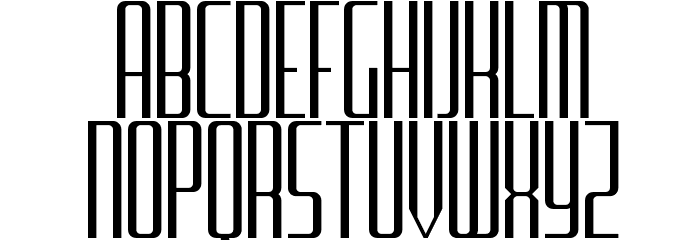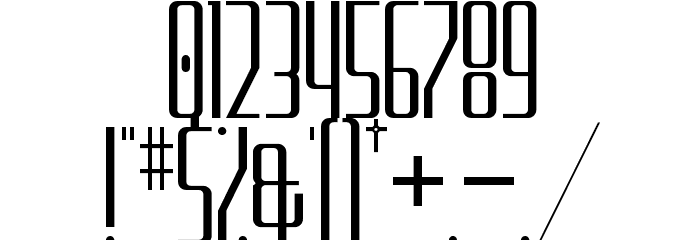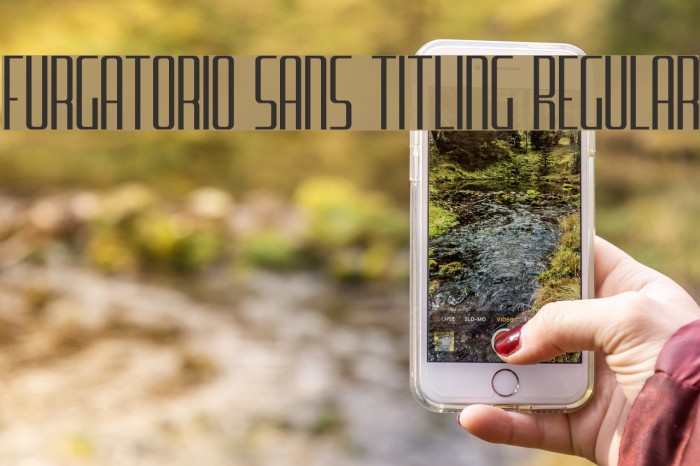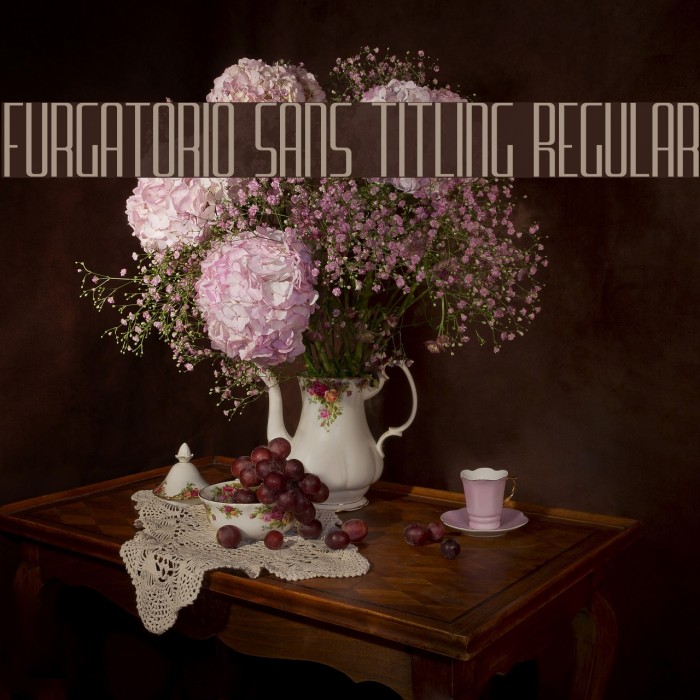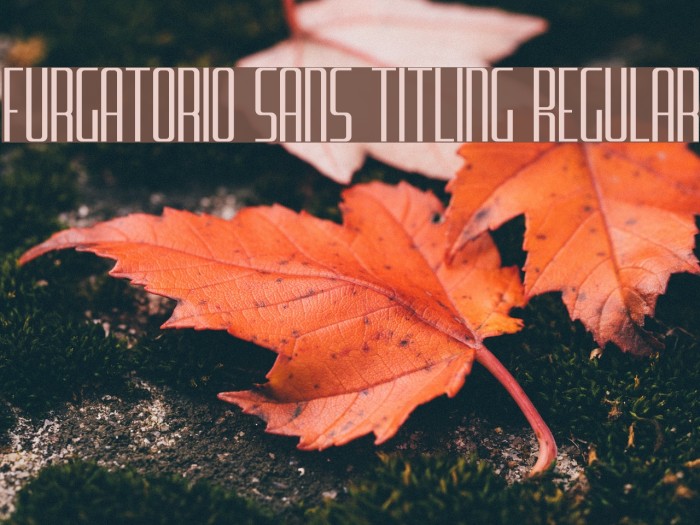
Furgatorio Sans Titling Regular Font
This font features a tall, narrow design with a modern and sleek appearance. The characters are elongated and have a consistent stroke width, giving it a uniform and structured look. The uppercase letters are particularly striking, with sharp angles and clean lines that convey a sense of sophistication and elegance. The lowercase letters maintain the same height as the uppercase, creating a cohesive and harmonious appearance. The numerals are similarly styled, matching the overall aesthetic with their elongated forms. Special characters are included, maintaining the same design principles. This font is ideal for projects that require a contemporary and stylish touch.
A tall, narrow font with a modern and sleek design, featuring consistent stroke width and sharp angles.
- Proposed Projects: Ideal for branding, advertising, fashion magazines, and modern web design.